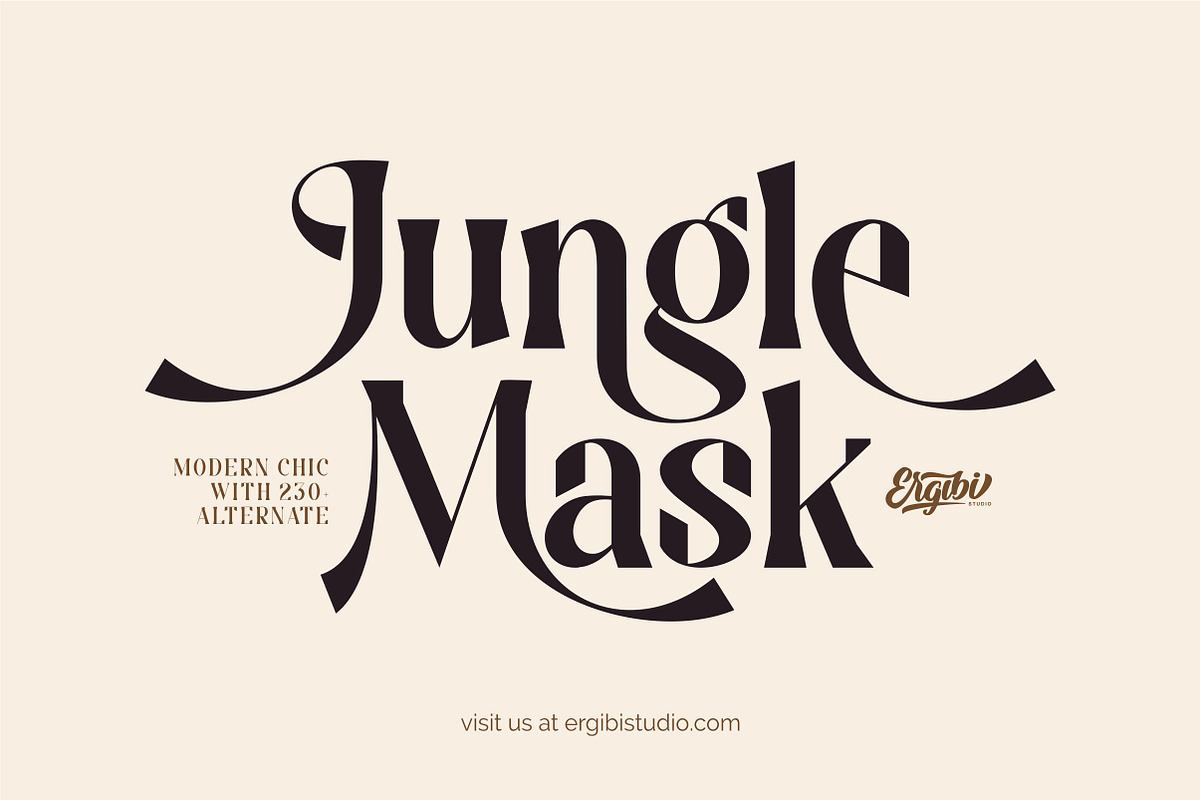
Step into the wild with Jungle Mask Modern Font Free Download — a bold, nature-inspired typeface designed to bring energy and style to your projects. Perfect for adventure branding, sports logos, music covers, creative posters, and anything that needs a modern yet rugged aesthetic, Jungle Mask brings a fresh, dynamic edge to your designs.
The unique design of Jungle Mask channels the essence of nature with sharp angles and organic shapes, offering a powerful visual statement. It includes uppercase and lowercase letters, punctuation, numerals, and multilingual support — providing the flexibility needed for bold, adventurous design work.